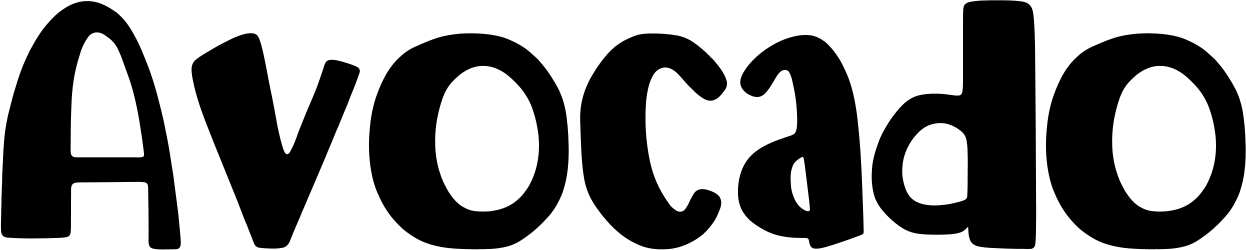
Avocado Font
It’s time to try Avocado and share a joyful and friendly vibe. This cartoon font can be used for books, flyers, posters, children’s programs, and whatnot. It comes in 2 different styles, choose your favorite one and get ready for a stunning layout. Do you need more? Visit our vast website now!